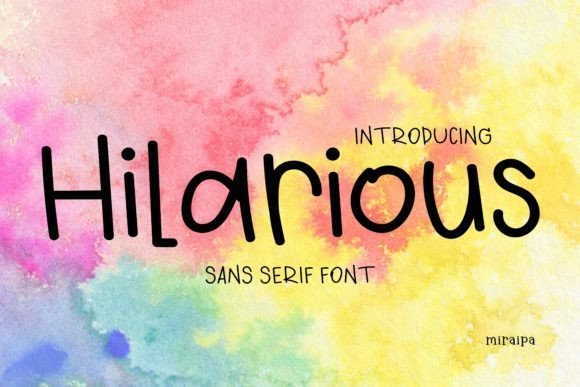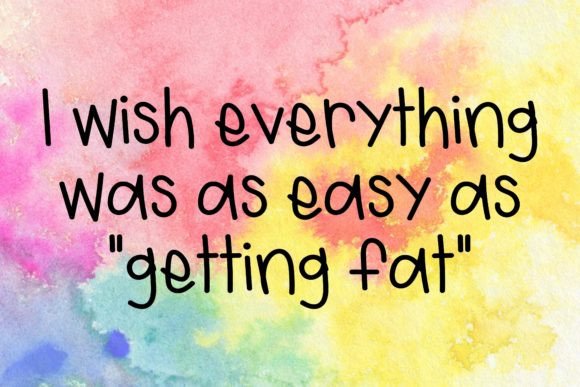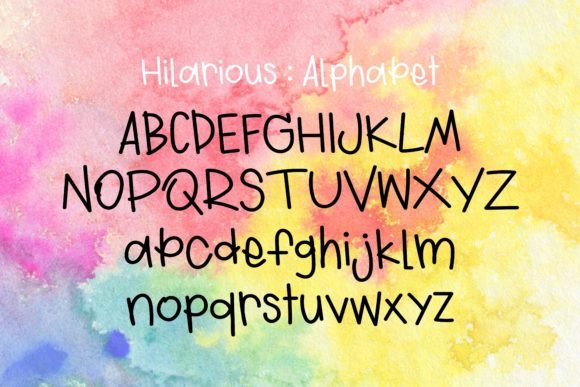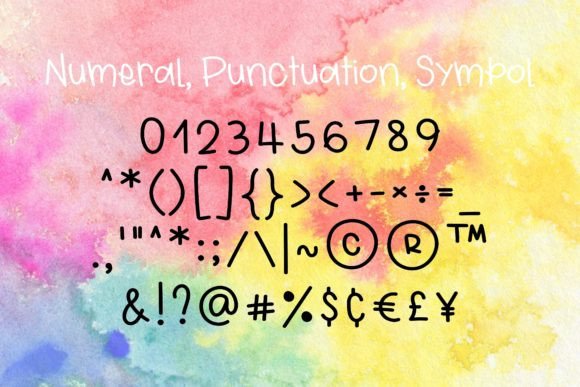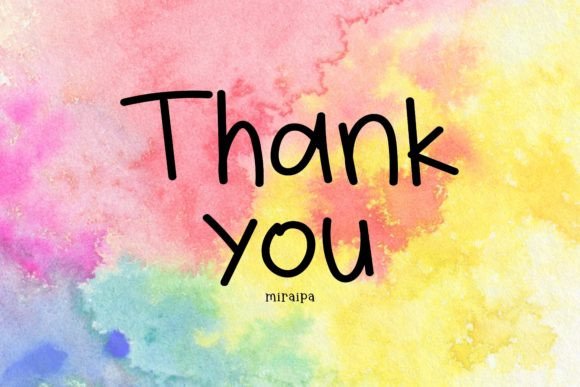
The Perfect Font for a Little Extra Fun
Have you ever stared at a blank canvas or a blank page, waiting for inspiration to strike? I’m sure we’ve all been there – the creative spark is there, but it’s just out of reach. Sometimes, all it takes is a little something extra to bring our ideas to life. That’s where the Hilarious Font comes in – a delightful, handwritten sans serif font that adds a friendly touch to any project.
This font is perfect for designers who want to add a bit of whimsy and personality to their work. Whether you’re creating a back-to-school planner, a wedding invitation, or a holiday poster, the Hilarious Font is sure to bring a smile to your face and a touch of magic to your design. With its cute and friendly style, it’s a valuable addition to any designer’s font library.
Hilarious Font Key Features
- Font Family: Hilarious Font is a sans-serif typeface, designed to evoke a sense of playfulness and humor.
- Unique Characteristics: Hilarious Font features a distinctive, rounded design with exaggerated curves, making it perfect for creating eye-catching headlines and titles.
- Style Variations: Includes three font styles: Regular, Bold, and Italic, offering flexibility and versatility for various design applications.
Hilarious Font Review
I have to say, the Hilarious Font is quite the character. It’s a bold, playful font that’s sure to grab attention. Here are a few things that really work well:
- ✨ Unique personality: The font’s quirky charm is infectious and makes it perfect for projects that need a lighthearted touch.
- ✨ High legibility: Despite its unconventional appearance, the font remains easy to read, even at smaller sizes.
- ✨ Versatility: Hilarious Font can be used for a wide range of applications, from headings to body text, and even for logos.
- ⚠️ Limited support for non-English characters: While the font works well with standard English characters, it may not render correctly with non-English characters or special symbols.
- ⚠️ Potential overuse: The font’s bold personality can be overwhelming if used too extensively, so be sure to balance it with other fonts and design elements.
Overall, I think the Hilarious Font is a great addition to any designer’s toolkit. With its unique personality and versatility, it’s perfect for projects that need a touch of whimsy. Just be sure to use it judiciously to avoid overwhelming the viewer.